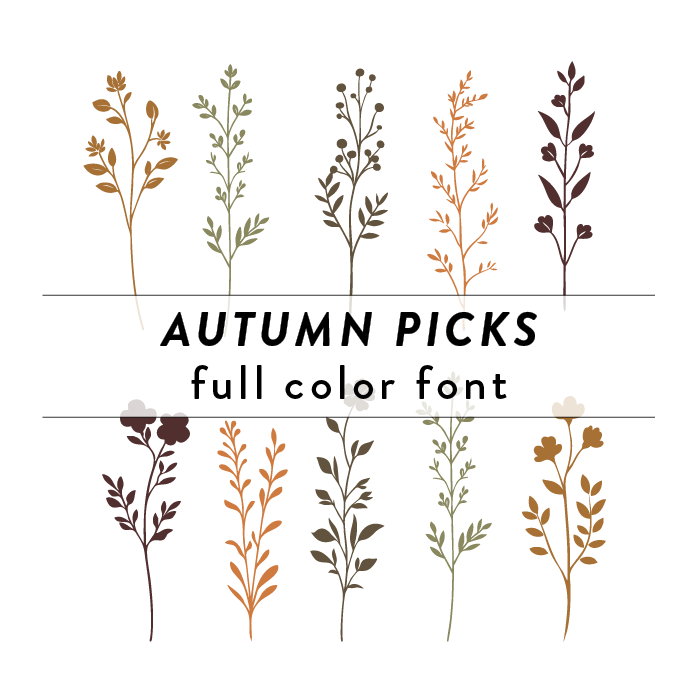
Autum Floral Picks Full Color Font is a unique font design inspired by autumn and decorated with intricate floral patterns. The font style is decorative and vibrant, perfect for adding a touch of seasonal charm to any DIY project. This font is ideal for creating eye-catching headers, invitations, and other decorative elements that require a touch of fall elegance.